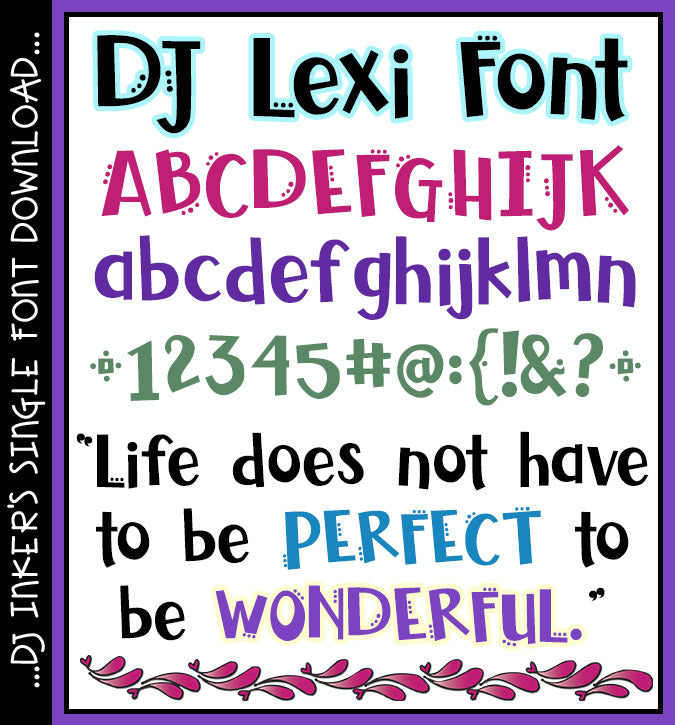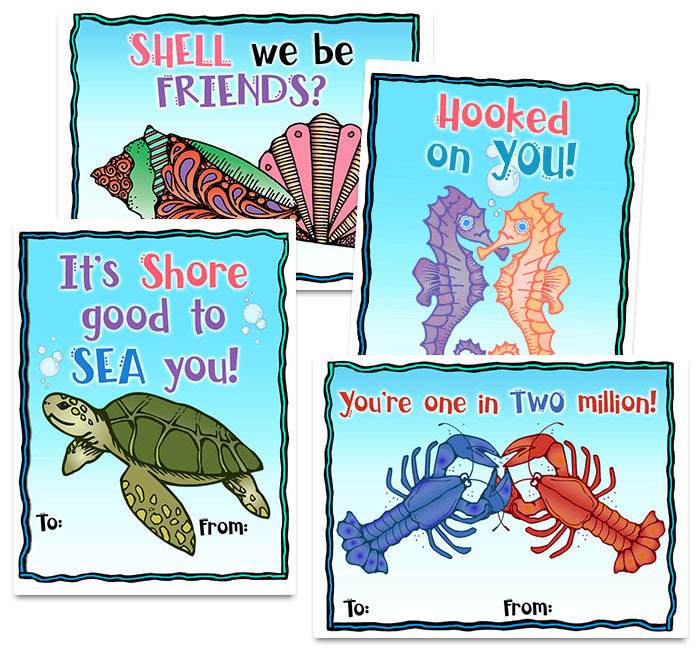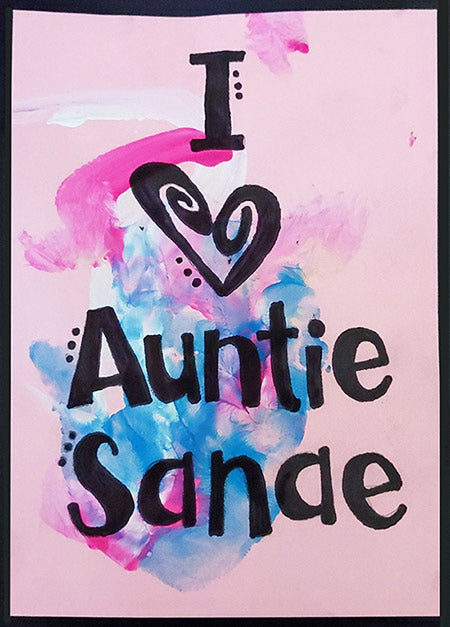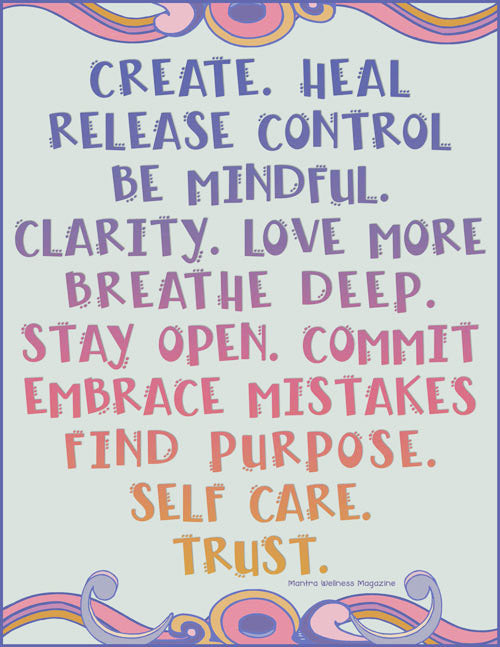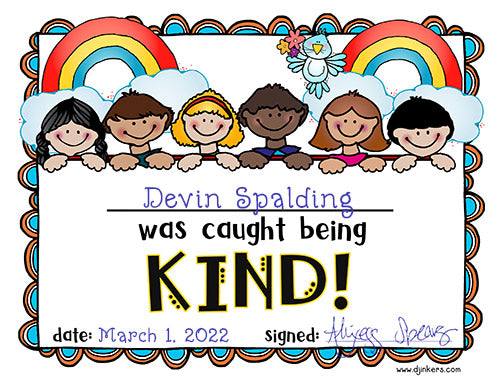
DJ Lexi Font Download
Your notes & headlines are sure to POP when you type-up a smile with
DJ Lexi. This bold font is packed with personality, but still strong
and easy to read. Add it to your collection today for home, school,
office or play!
Updated and revised from 'DJ Lex' on Super Fontastic.